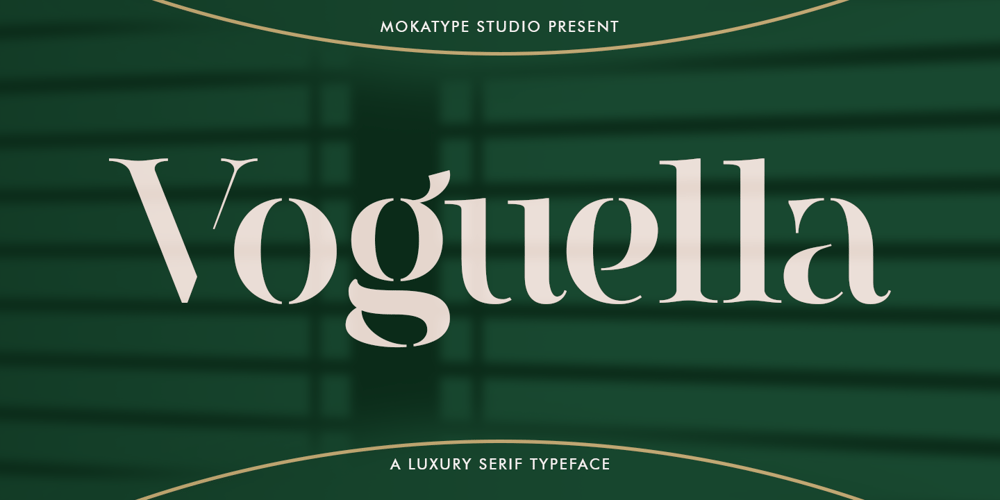
Voguella Font Family was designed by Abdul Malik Wisnu, Rivo Adriansyah and published by Mokatype Studio. Voguella contains 2 styles and family package options. Hello Introducing, Voguella – Luxurious Serif Display is elegant, inspired by the famous Elegant logo, perfect for the purposes of designing templates, brochures, videos, advertising branding, logos, and more. Perfect for adding a unique twist to word-mark logos, monograms, or pull quotes. What’s Included: Standard glyphs Web Font International Accent Works on PC & Mac Simple installations Accessible in Adobe Illustrator, Adobe Photoshop, Adobe InDesign, even work on Microsoft Word. PUA Encoded Characters – Fully accessible without additional design software. Fonts include multilingual supportImage used: All photographs/pictures/vectors used in the preview are not included, they are intended for illustration purposes only.